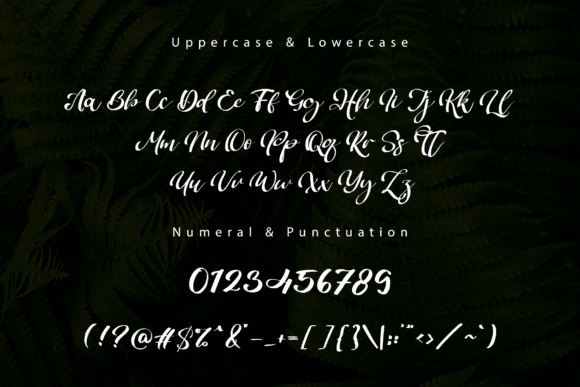
Bogbeast Font
Bogbeast is a modern and playful handwritten script font. It’s great for crafters and designers. Use this font for your designs and explore its endless possibilities.